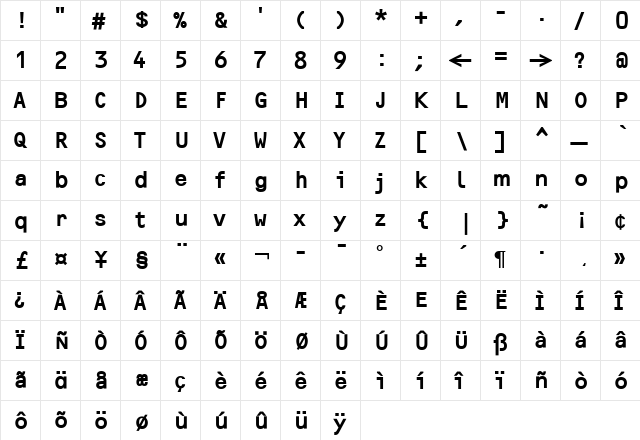
F2FOCRBczyk LT Std Bold Regular
| Foundry | Linotype Library GmbH |
| Designer | Alexander Branczyk |
Design Context for F2FOCRBczyk LT Std Bold Typeface
F2FOCRBczyk LT Std Bold takes a measured approach to typography — its balanced proportions and neutral character make it a reliable workhorse for both digital and print work. Its bold stroke weight gives it real presence on the page.